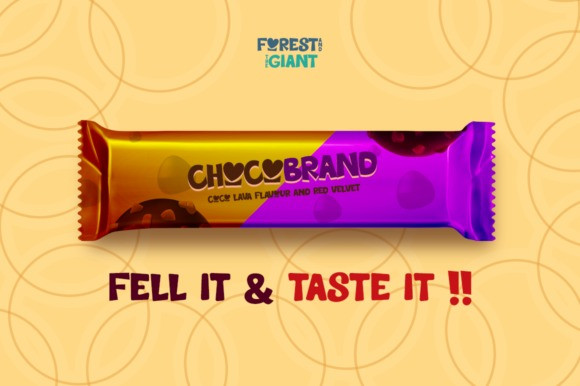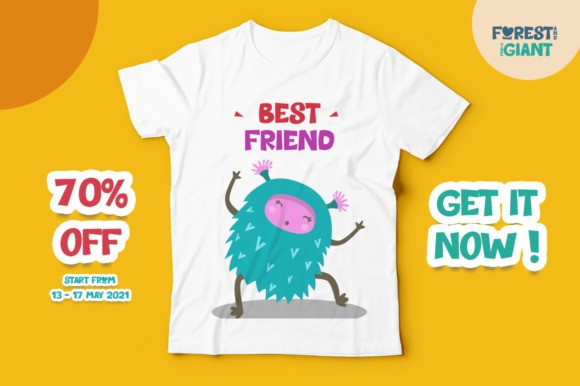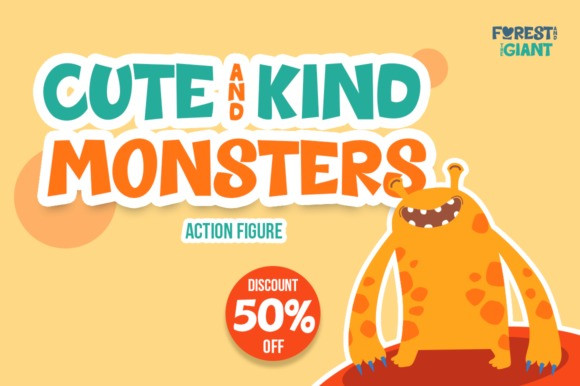
Forest & The Giant Display Font
It’s a playfull & cute display font manufactured by EmbunStudio. Featuring a bold weight, it offers support for all characters of the English and large range of language. Including numbers and punctuation. Whether you use it for cartoon related designs, children games or just any creation that requires a lovely touch, this font will be an amazing choice.